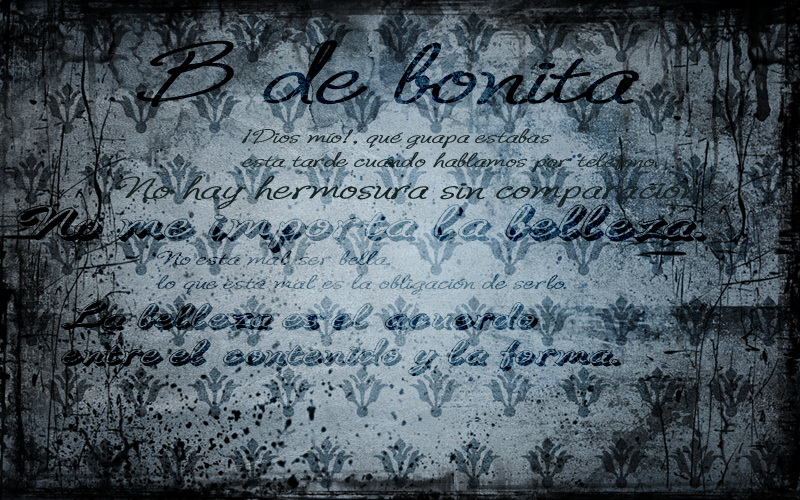
B de bonita by deFharo is a free calligraphic script with sweeping, highly extended capitals and a lively signature-like line. Strong changes in stroke width give the letters a crisp, pen-drawn elegance. The flourishes travel far beyond the main forms.
Invitation design is its most convincing setting, especially for weddings and formal celebrations that benefit from expressive lettering. It also suits beauty packaging, fashion branding, and music artwork, where its long curves can echo ribbon graphics, fine-line illustration, or the movement of a photographed figure.